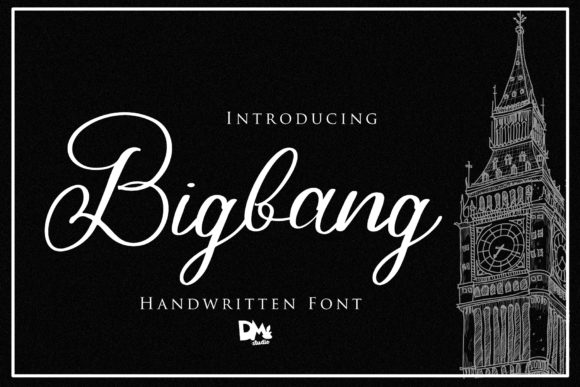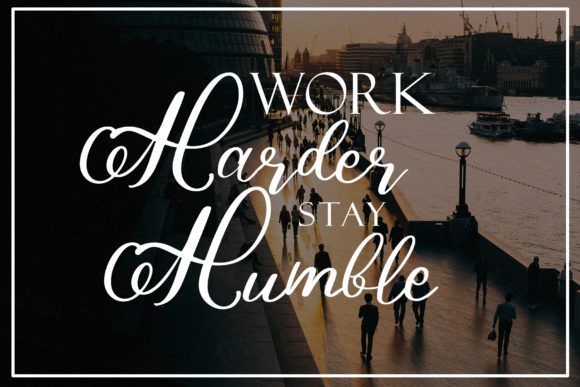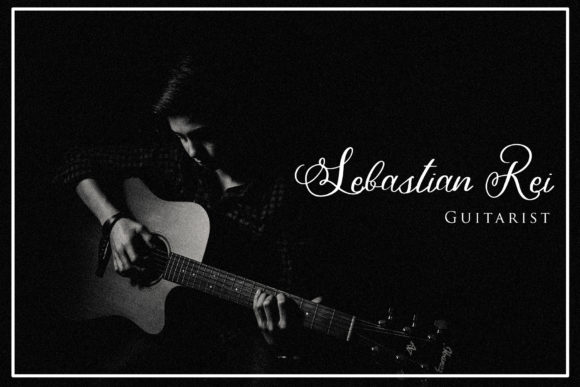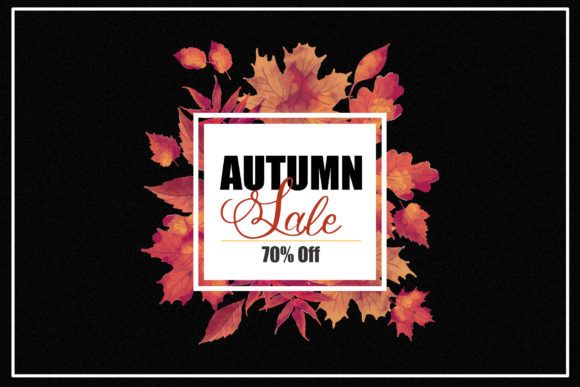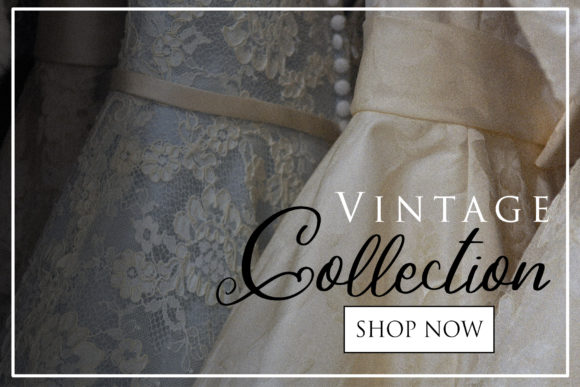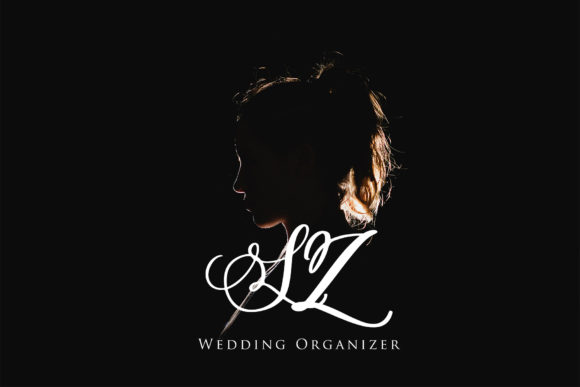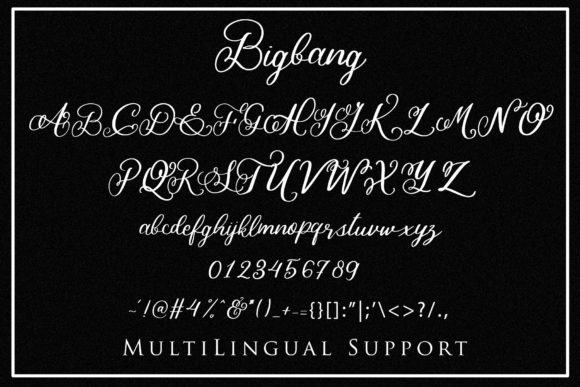
HomeScript FontsBigbang Font Script Fonts Bigbang Font FacebookXPinterestWhatsApp Bigbang Font Poster 2 Bigbang Font Poster 3 Bigbang Font Poster 4 Bigbang Font Poster 5 Bigbang Font Poster 6 Bigbang Font Poster 7 About Bigbang Font Bigbang is a classic script with a vintage feel. It will add an authentic layer to any design project! DOWNLOAD NOW People also explored Magfirah Font Mistafelga Font Christmas Notification Font Swan Font Alanastri Font Mezza Black Font Vintage House Font Play Diamond Font Grinches Font 334 0 TagsBigbang Font Previous articleSarmytos FontNext articleJagalana Font LEAVE A REPLY Cancel reply Comment: Please enter your comment! Name:* Please enter your name here Email:* You have entered an incorrect email address! Please enter your email address here Website: Save my name, email, and website in this browser for the next time I comment. Personal Use Free Machine House Personal Use Free Read more about this font 1313 Mockingbird Lane Personal Use Free Read more about this font Nickainley Personal Use Free Read more about this font Amillina Monogram Personal Use Free Read more about this font BLOG Best Fonts for T-Shirt Design – Top 2025 Picks In 2025, t-shirt design has become more than just fashion—it's a form of self-expression. Whether you're... Using Fonts in Digital Marketing: Tips to Strengthen Your Brand Identity Best Fonts for YouTube Videos: Make Your Thumbnails Stand Out Top 10 Handwritten Fonts That Elevate Your Designs